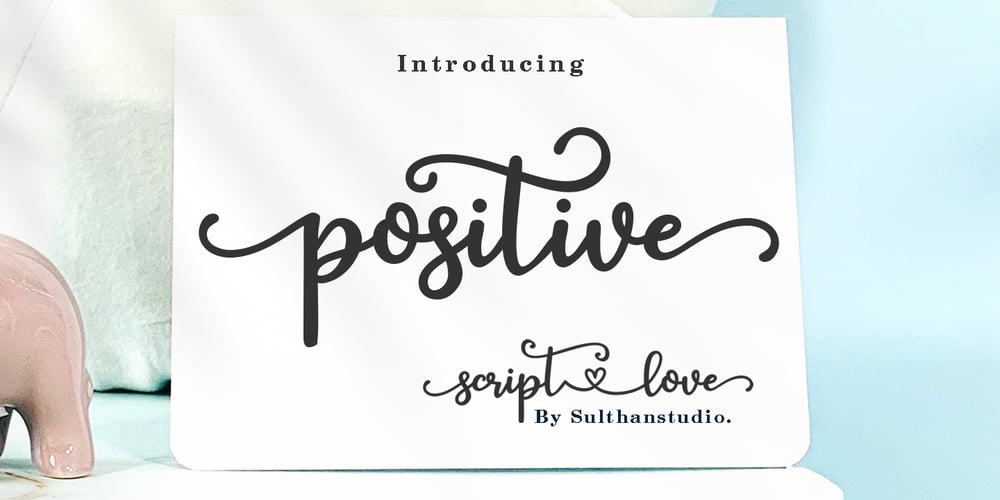
Positive
Positive font
Positive Font Family was designed by Nasrullah and published by Sulthan Studio. Positive contains 1 styles and family package options. is a bold script font written in a sweet and friendly manner. Fresh and sleek, this font is ideal for writing wedding invitations, cards, stickers, cutouts, or any other design that might need a fun touch!PUA encoded which means you can access all glyphs and swashes easily.